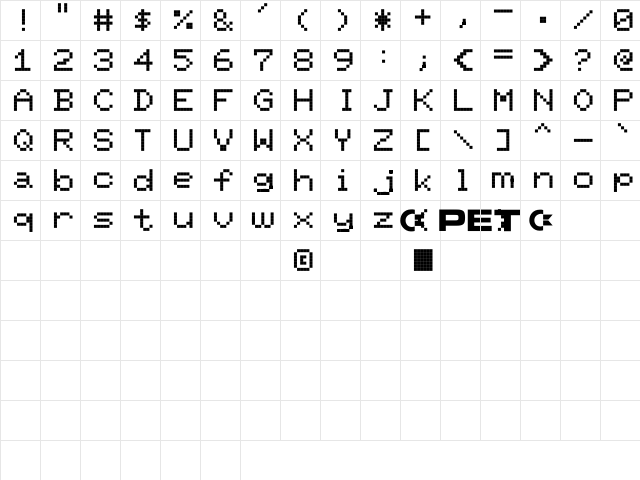
Commodore PET Regular
Design Context for Commodore PET Typeface
Commodore PET is a composed and adaptable typeface that performs quietly and consistently across a wide range of design contexts.
Pro Tip: Pair Commodore PET with a font of contrasting weight or personality to build a more expressive typographic hierarchy.